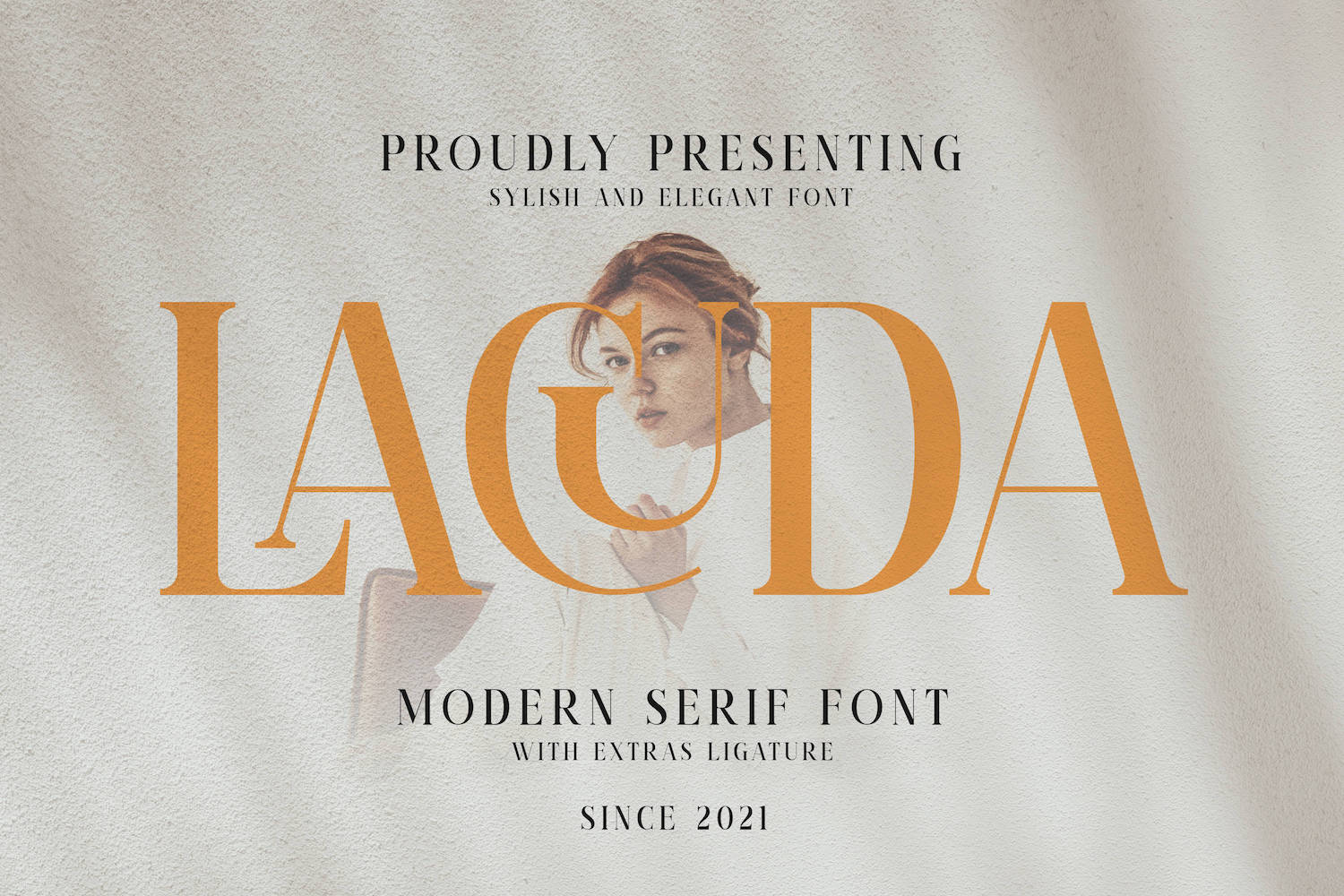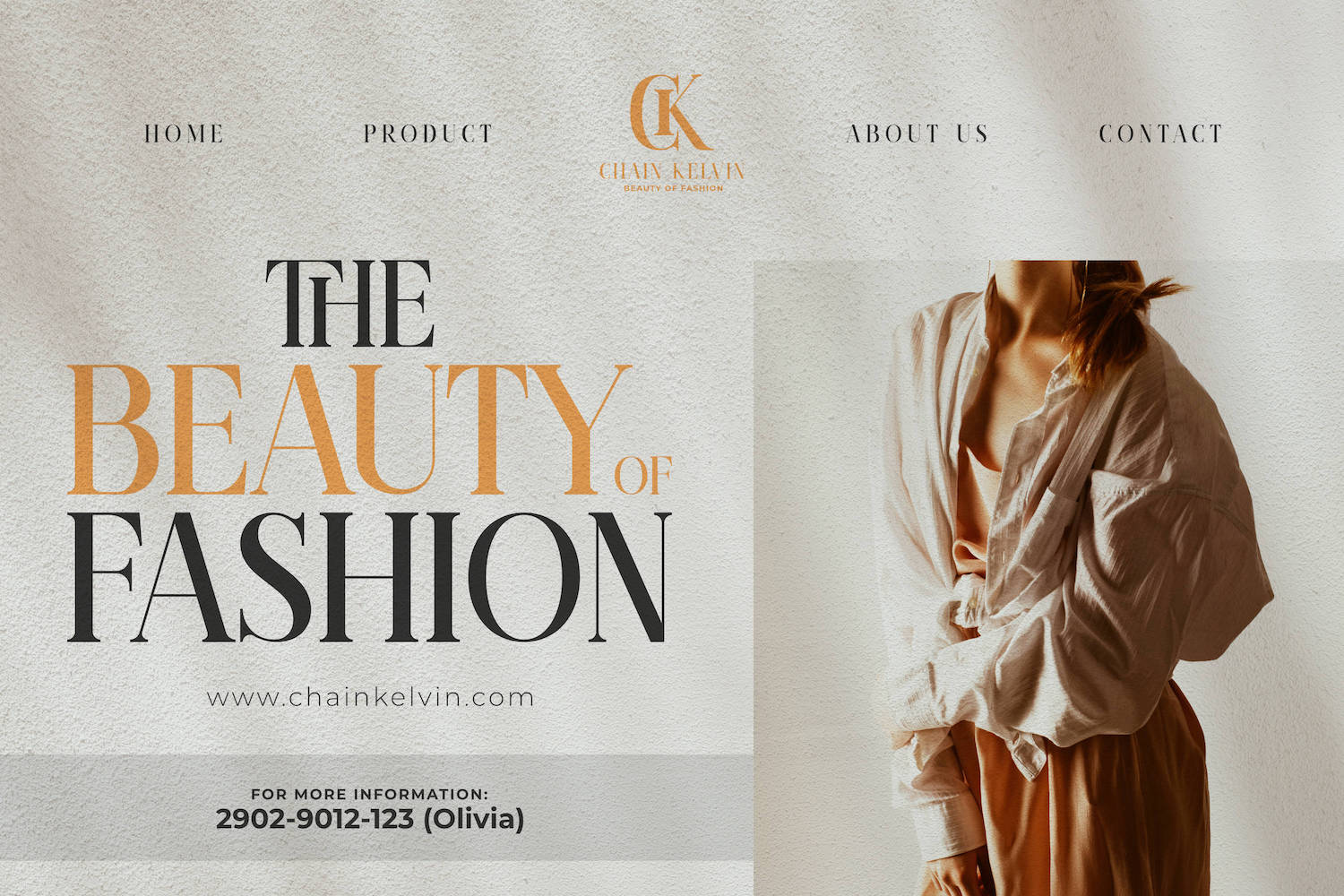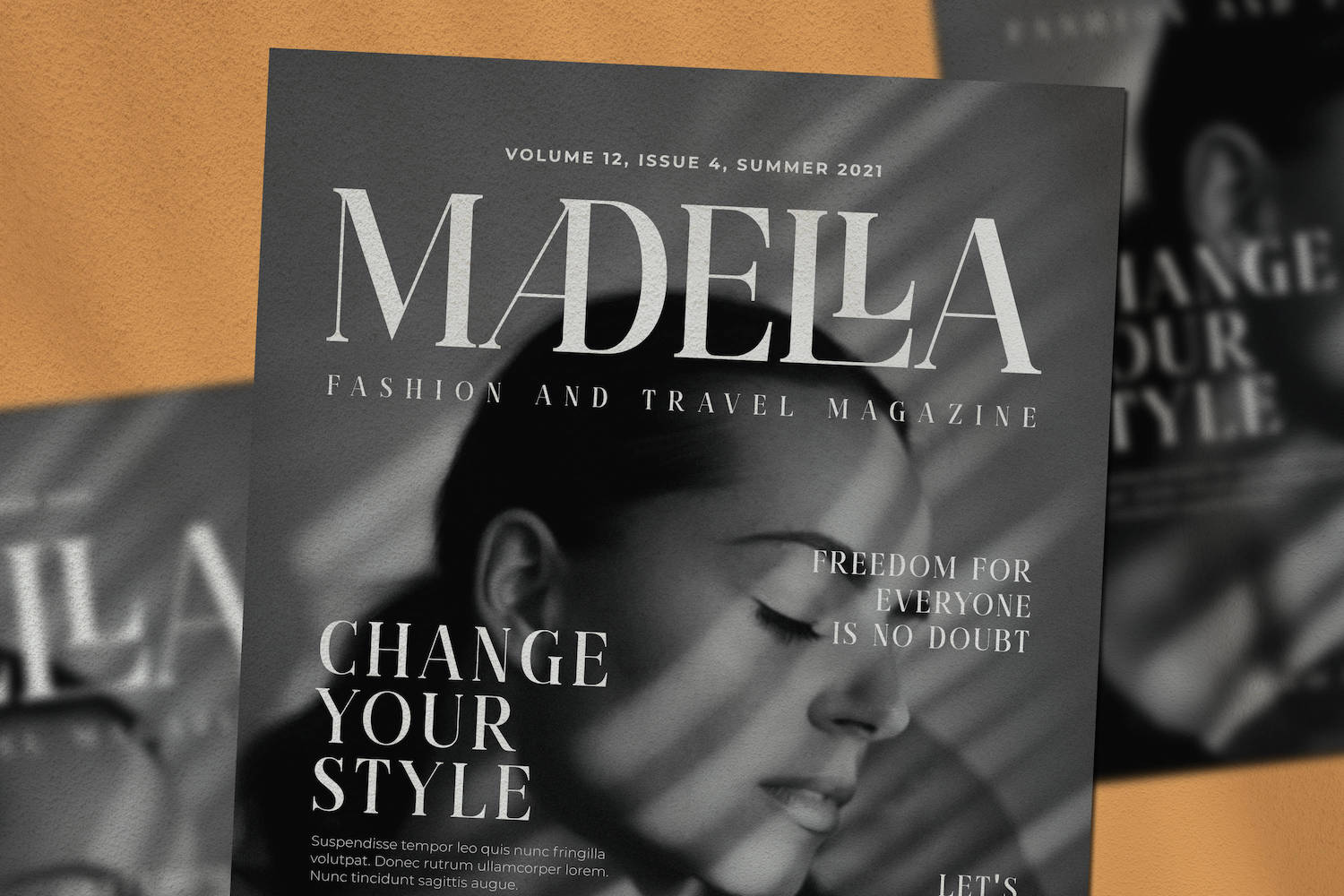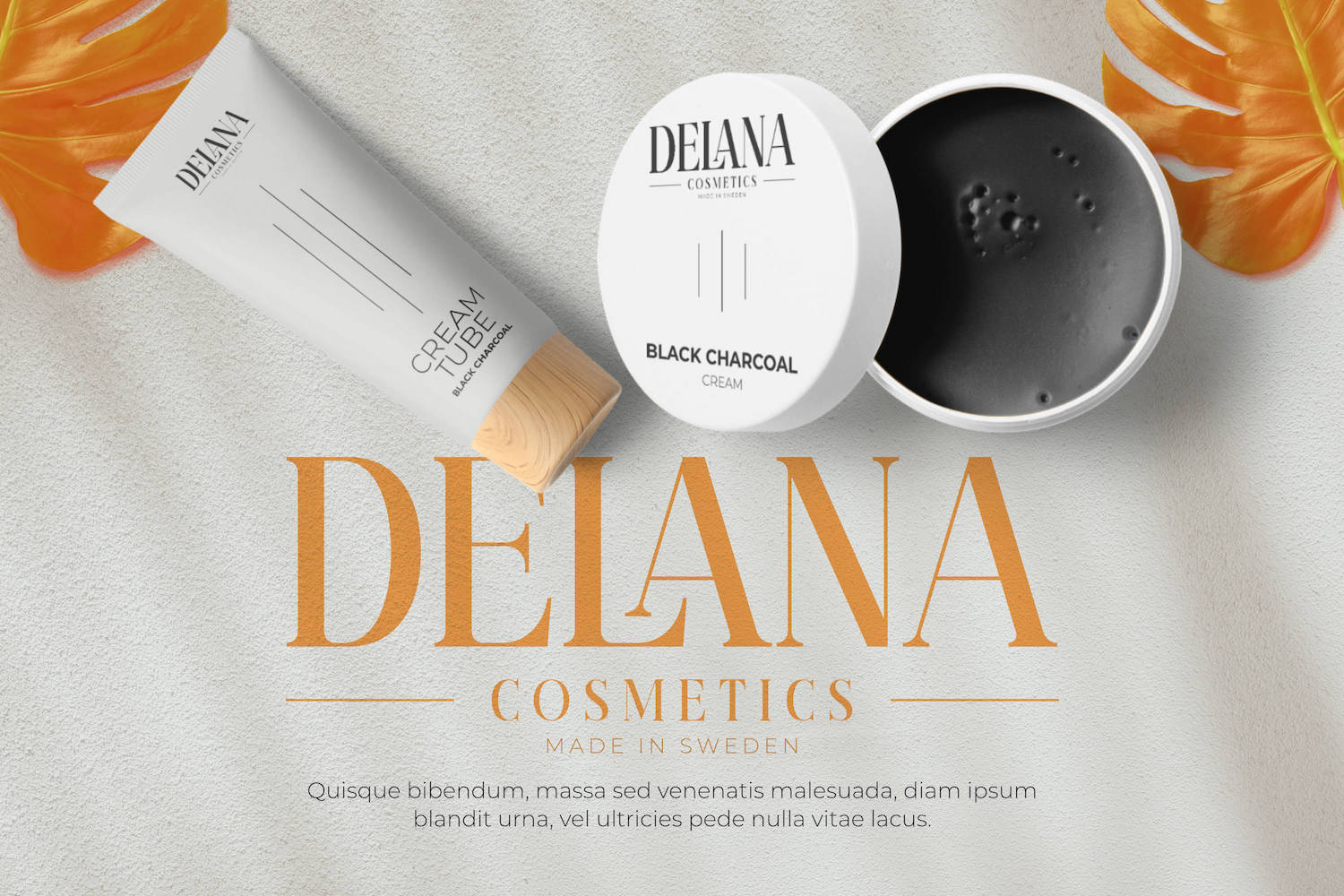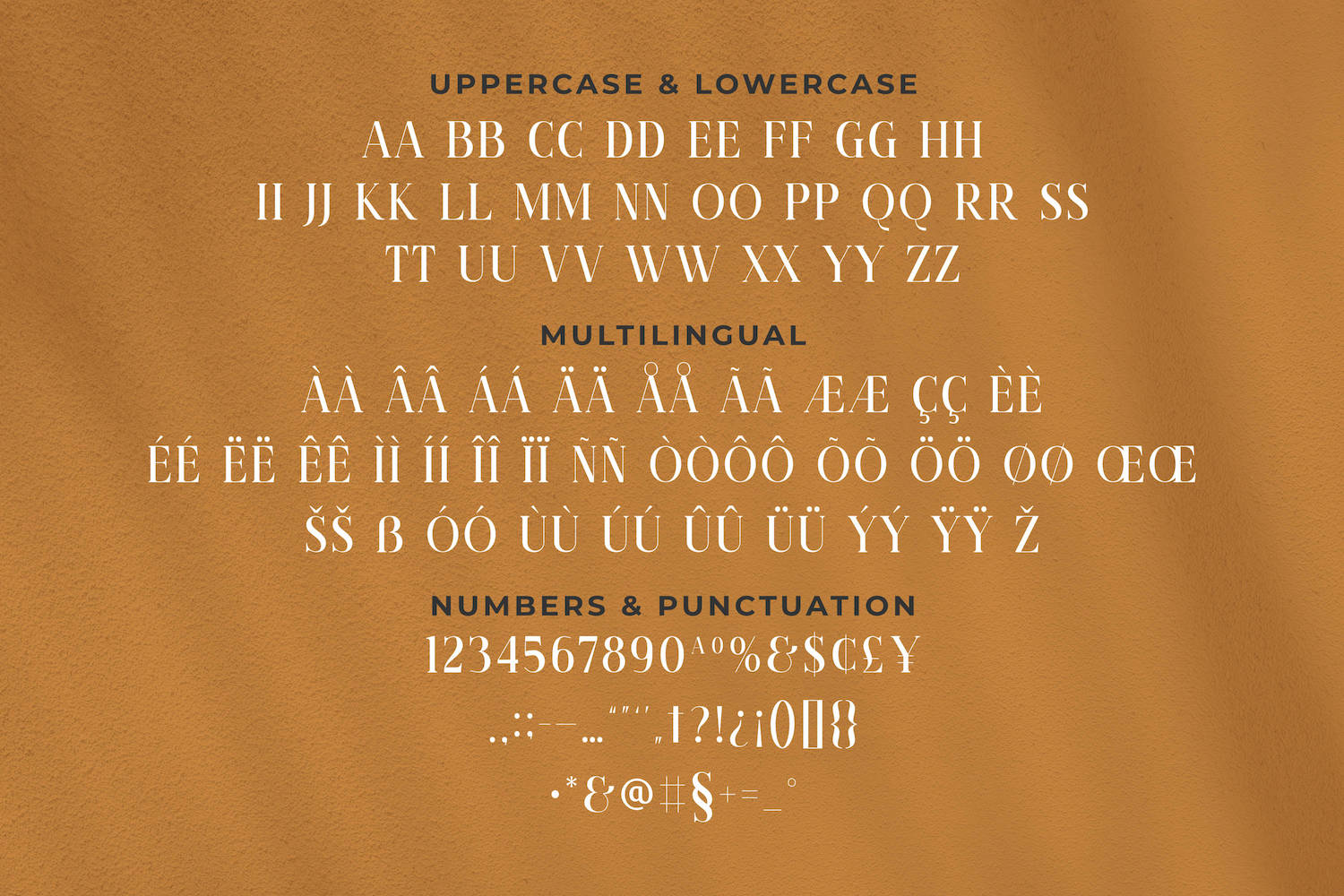
Lacuda is a modern serif font that blends elegance with sophistication, perfect for branding, editorial layouts, and fashion-related design projects. Its stylish curves, high-contrast strokes, and refined ligatures create a timeless aesthetic, making it an ideal choice for luxury branding, magazines, and cosmetic packaging.
This font includes uppercase and lowercase letters, multilingual characters, and a collection of elegant ligatures that enhance its visual appeal. Whether used for headlines or logos, Lacuda delivers a classic yet contemporary look that elevates your design with confidence and charm.
Lacuda